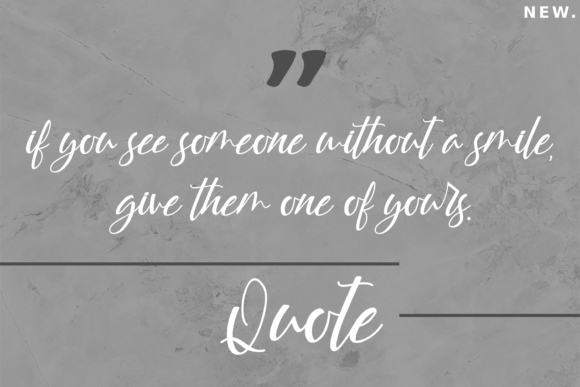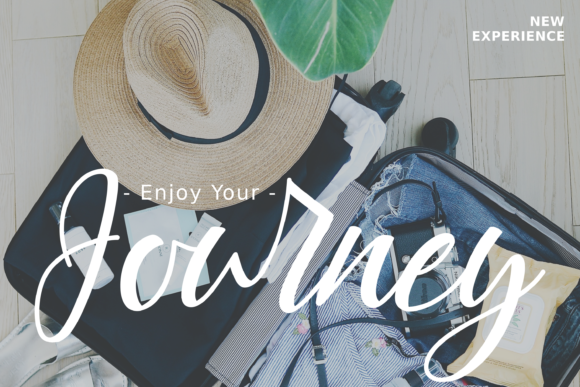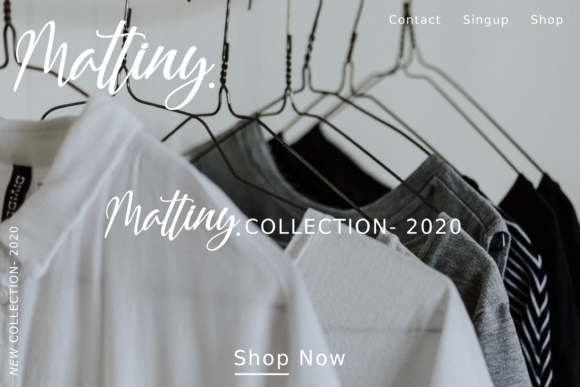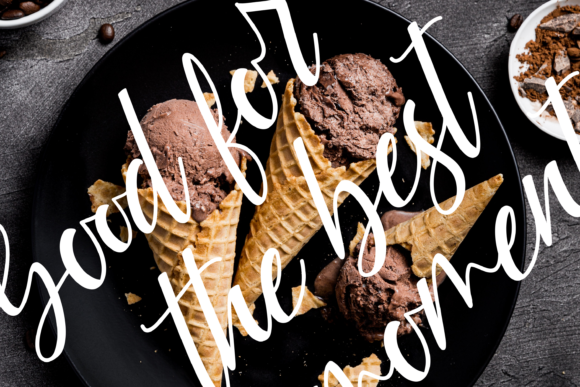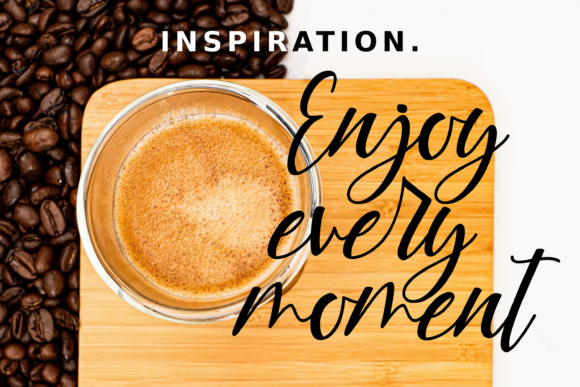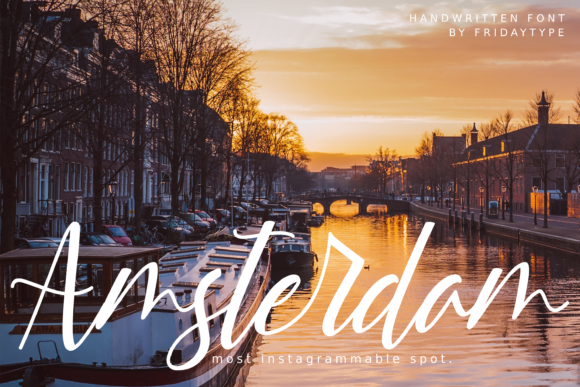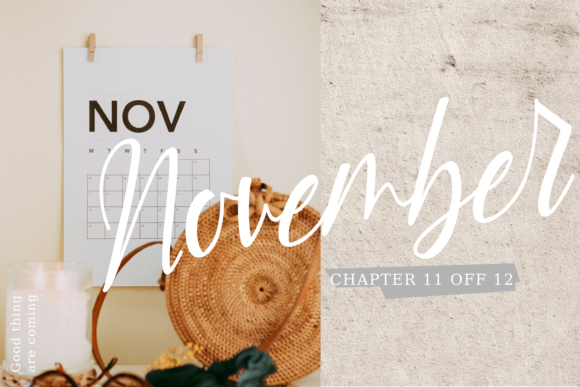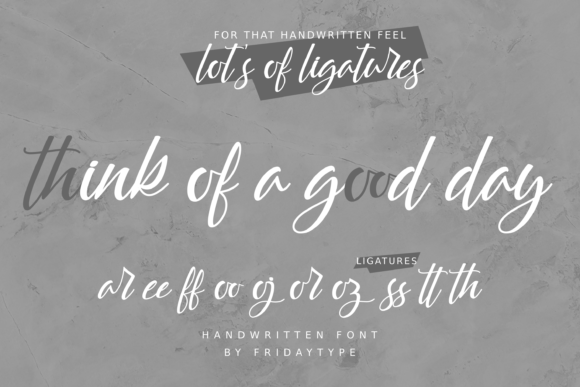
Yattie Font
About Yattie Font
Yattie is a gorgeous and light handwritten font that will make any design project stand out. Get inspired by its unique charm!